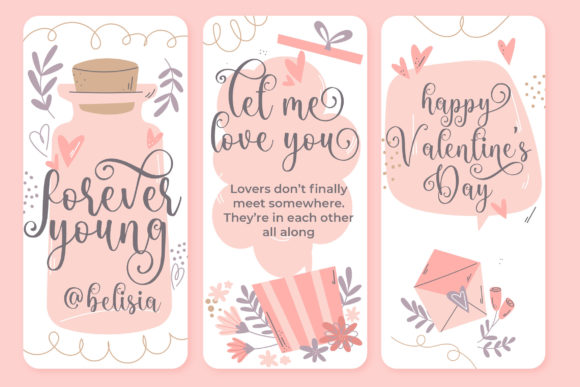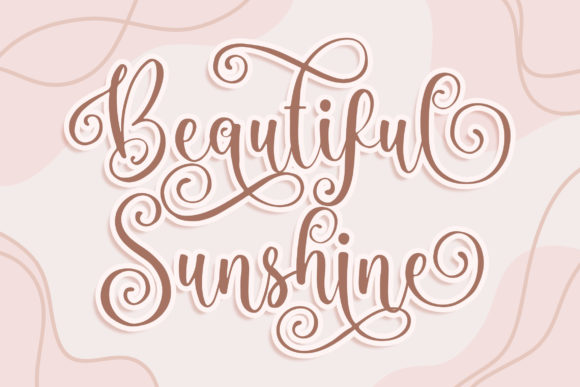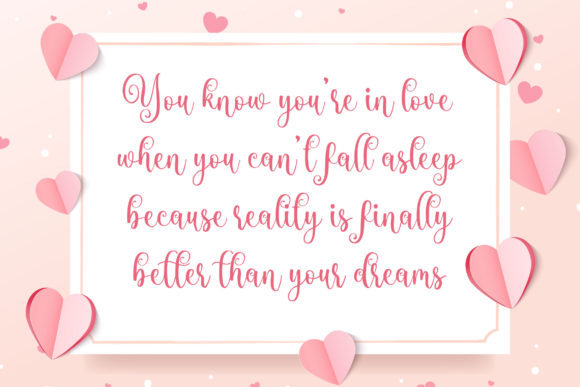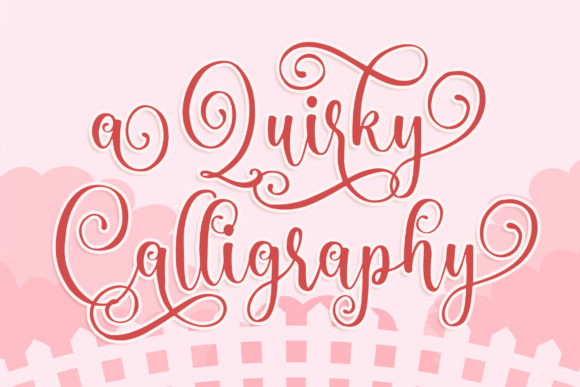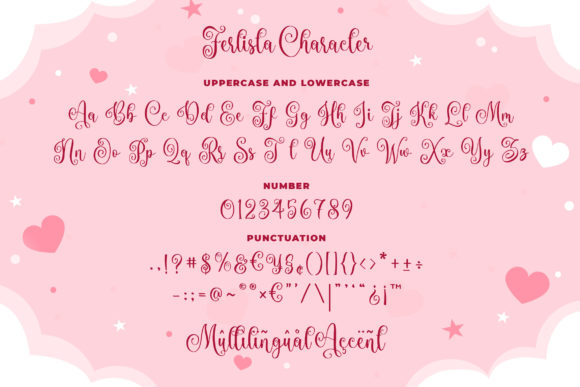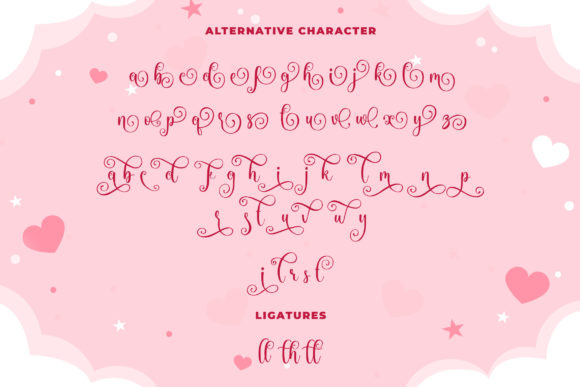
Ferlista Font: The Ultimate Choice for Creative Projects
Are you a designer, crafter, or DIY enthusiast looking for a font that can add a touch of playfulness and quirkiness to your projects? Look no further than Ferlista Font! This adorable script font is perfect for a wide range of creative applications, from t-shirt designs and posters to websites, logos, and stationery.
What is Ferlista Font?
Ferlista is a cute and fun script font that is designed to bring a smile to your face. Its playful and quirky design makes it an excellent choice for projects that require a personal touch. The font features elegant, cursive strokes with a hint of whimsy, making it perfect for adding a touch of personality to your designs.
Key Features of Ferlista Font
- Playful and Quirky Design: Ferlista Font features a unique and playful design that is sure to grab attention.
- Script Style: The font has a beautiful script style that is perfect for adding a touch of elegance to your designs.
- Cute and Fun: Ferlista Font is designed to be cute and fun, making it perfect for projects that require a playful touch.
- Highly Versatile: The font can be used for a wide range of projects, from t-shirt designs and posters to websites, logos, and stationery.
Uses of Ferlista Font
Ferlista Font is an incredibly versatile font that can be used for a wide range of creative projects, including:
- T-Shirt Designs: Add a playful touch to your t-shirt designs with Ferlista Font.
- DIY Crafts: Use Ferlista Font to add a personal touch to your DIY crafts, such as handmade cards and gift tags.
- Posters: Create eye-catching posters with Ferlista Font that are sure to grab attention.
- Websites: Add a touch of personality to your website with Ferlista Font.
- Logos: Use Ferlista Font to create a unique and memorable logo for your business.
- Stationery: Add a playful touch to your stationery, such as notebooks and journals, with Ferlista Font.
- Invitations: Create beautiful and playful invitations with Ferlista Font.
Why Choose Ferlista Font?
- Unique Design: Ferlista Font features a unique and playful design that is sure to stand out.
Tips for Using Ferlista Font
- Experiment with Different Sizes: Ferlista Font looks great in a variety of sizes, so don’t be afraid to experiment.
- Pair with Other Fonts: Ferlista Font pairs well with other fonts, so try pairing it with a bold font for a contrasting look.
- Use for Headings and Titles: Ferlista Font is perfect for headings and titles, so use it to add a touch of personality to your designs.
In conclusion, Ferlista Font is a cute and fun script font that is perfect for a wide range of creative projects. Its playful and quirky design makes it an excellent choice for designers, crafters, and DIY enthusiasts who want to add a personal touch to their designs. With its highly versatile design, ease of use, and affordable price, Ferlista Font is an excellent choice for anyone looking to add a touch of personality to their creative projects.